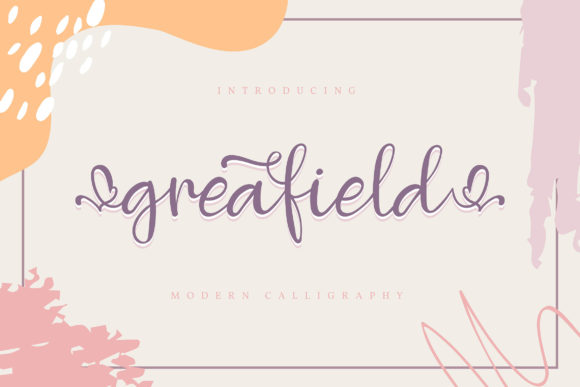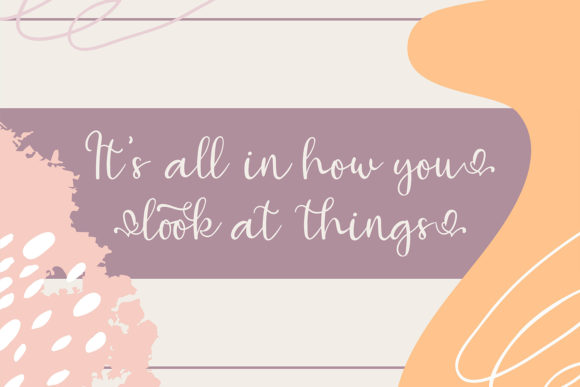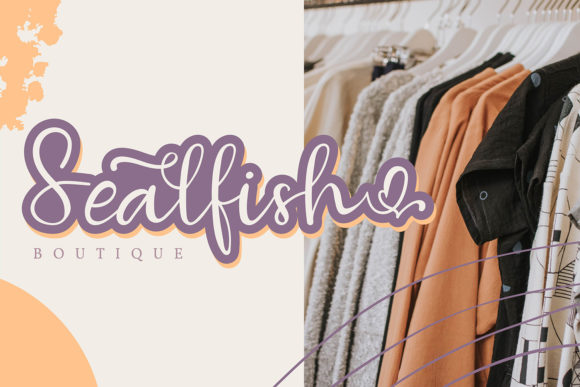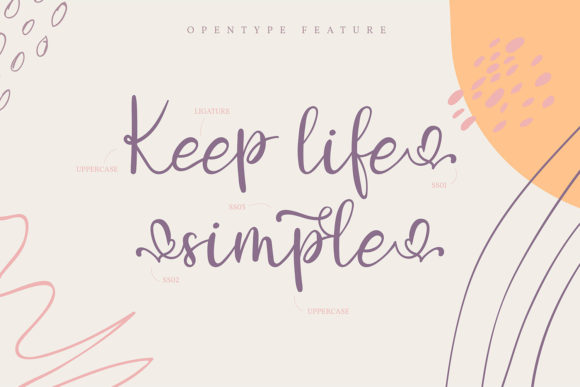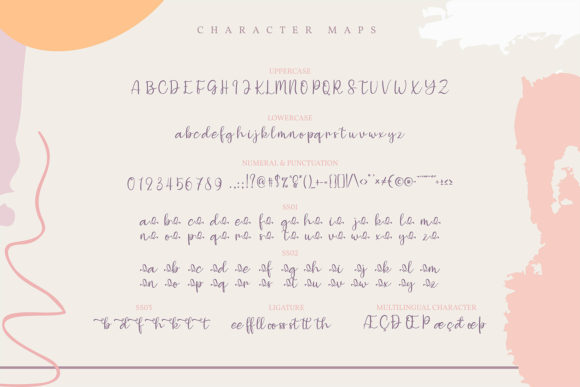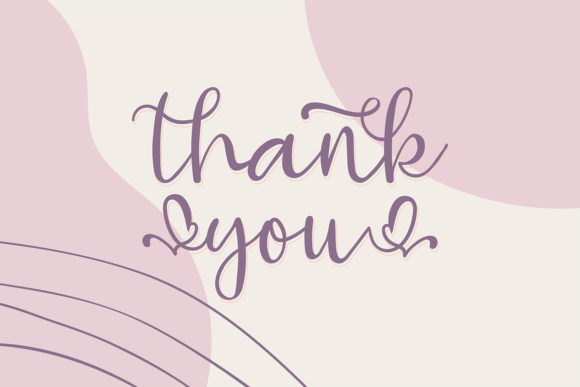
Greafield Font
About Greafield Font
Greafield is a captivating and enchanting handwritten font that combines the timeless elegance of calligraphy with a modern and fresh twist. It exudes a romantic and sweet vibe that adds a touch of charm to any design. With its PUA encoding, accessing the various glyphs and swashes is effortless, allowing you to personalize your creations with ease.
The graceful and flowing nature of Greafield makes it perfect for creating romantic and heartfelt designs. It is an excellent choice for wedding invitations, love letters, and anniversary cards, as it captures the essence of love and romance. The intricate and delicate letterforms of Greafield add a touch of sophistication and allure, setting the tone for a truly special occasion.
Beyond wedding-related designs, Greafield can be used to create a variety of captivating projects. Its classy calligraphic influences and contemporary feel make it suitable for logo designs, branding materials, quotes, and social media graphics. Whether you’re designing a logo for a luxury brand or crafting an inspirational quote, Greafield brings an air of elegance and style to your work.
When using Greafield, consider exploring the range of swashes and alternate glyphs available. These decorative elements allow you to add flourishes, ligatures, and unique variations to your text, further enhancing the visual appeal and customization options of your designs. Experiment with different combinations and layouts to create truly personalized and eye-catching compositions.
Pair Greafield with complementary fonts that complement its romantic and sweet style. Serif or sans-serif fonts can provide a balanced contrast, while script fonts with a similar vibe can create a harmonious and cohesive design. Play with different sizes, weights, and spacing to achieve the desired visual effect and ensure readability.
In summary, Greafield is a romantic and sweet handwritten font that blends timeless calligraphic influences with a contemporary twist. Its PUA encoding enables easy access to glyphs and swashes, allowing for effortless customization. Whether for wedding invitations, branding materials, quotes, or social media graphics, Greafield adds an elegant and charming touch to your designs. Embrace the versatility of this font and let it inspire your creativity to create captivating and heartfelt creations.